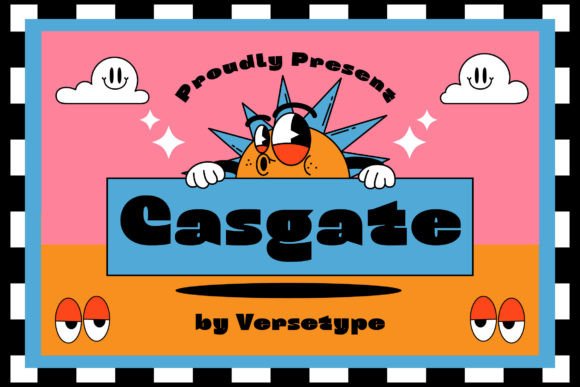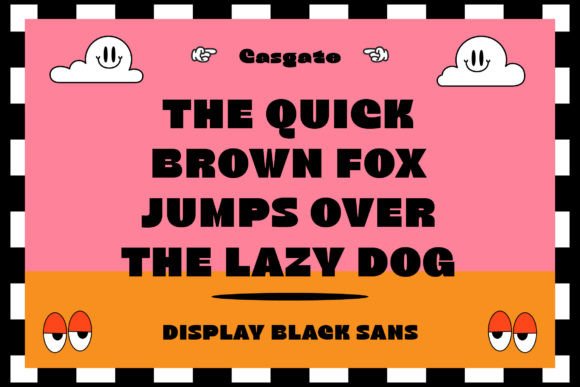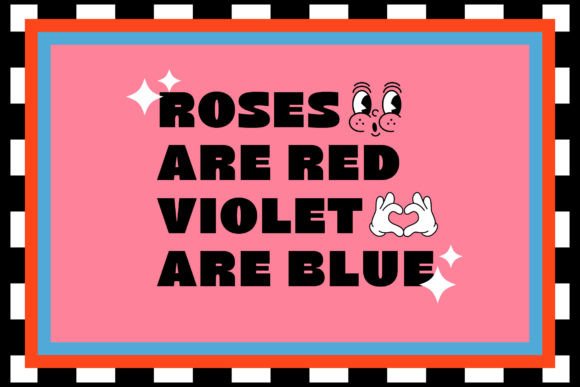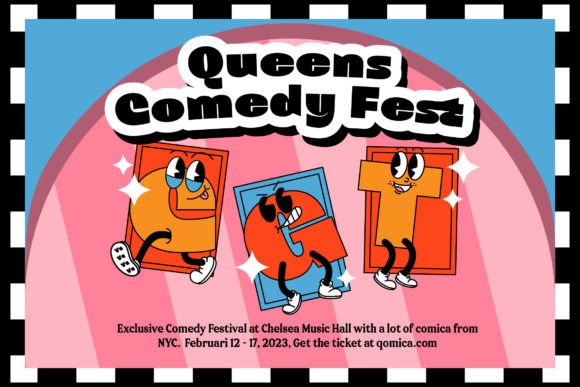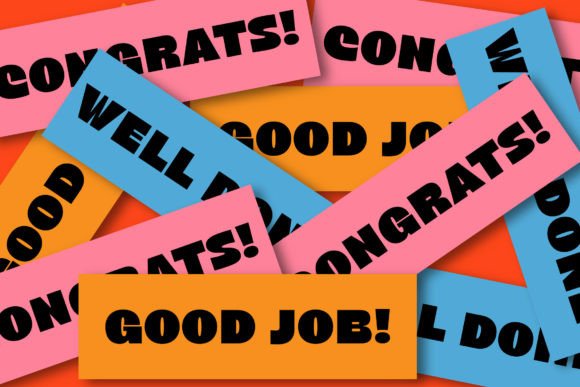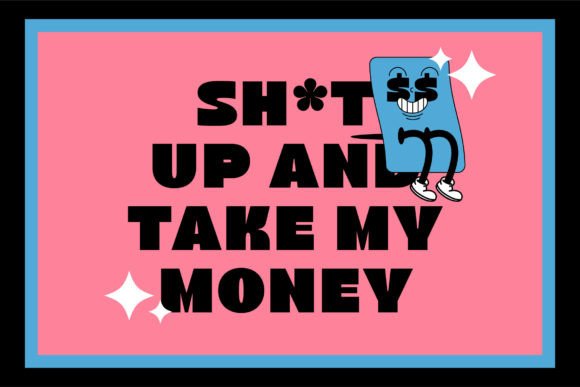
The Power of Casgate Font: A Designer’s New Best Friend
I’ll never forget the time I was working on a logo design project for a trendy new coffee shop. My client wanted a bold, eye-catching font that would stand out on their packaging and social media. I scoured the internet for the perfect font, but nothing seemed quite right. That was until I stumbled upon Casgate Font. 💡
Casgate is a black sans serif font with a small white space that gives it a unique, modern look. Its loud shape and strong character make it perfect for creating standout designs. In this article, I’ll share my honest review of Casgate, a practical guide on how to use it, and some tips on finding similar fonts.
My Honest Review of Casgate Font
- 💥 **Bold and eye-catching**: Casgate Font is perfect for creating bold, attention-grabbing designs.
- ✅ **Versatile**: It can be used for a wide range of projects, from logo branding to posters, social media, magazines, and packaging.
- 🎉 **Unique look**: The small white space in the font gives it a distinctive, modern look that sets it apart from other sans serif fonts.
- ⚠️ **Limited use for body text**: Due to its bold nature, Casgate Font may not be the best choice for body text or long paragraphs.
- 🤔 **May not be suitable for all audiences**: The font’s bold, edgy look may not appeal to all audiences or design styles.
The Backstory of Casgate Font
Casgate Font was designed by a team of typographers who wanted to create a bold, modern sans serif font that would stand out in any design. Inspired by urban landscapes and modern architecture, they crafted a font that’s both strong and elegant. The font’s unique look is achieved through a small white space that adds a touch of sophistication to any design.
| Font Name | Casgate Font |
| Author | Versetype |
Q: What is Casgate Font?
A: Casgate Font is a black sans serif font with a small white space that’s perfect for creating bold, eye-catching designs.
Q: Is Casgate Font suitable for body text?
A: Due to its bold nature, Casgate Font may not be the best choice for body text or long paragraphs. It’s better suited for headlines and titles.